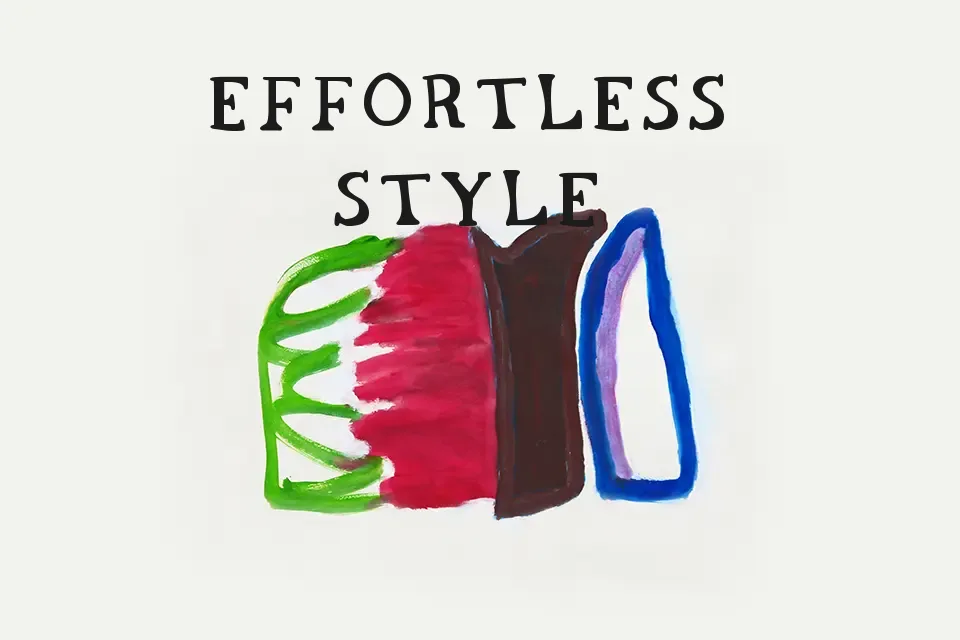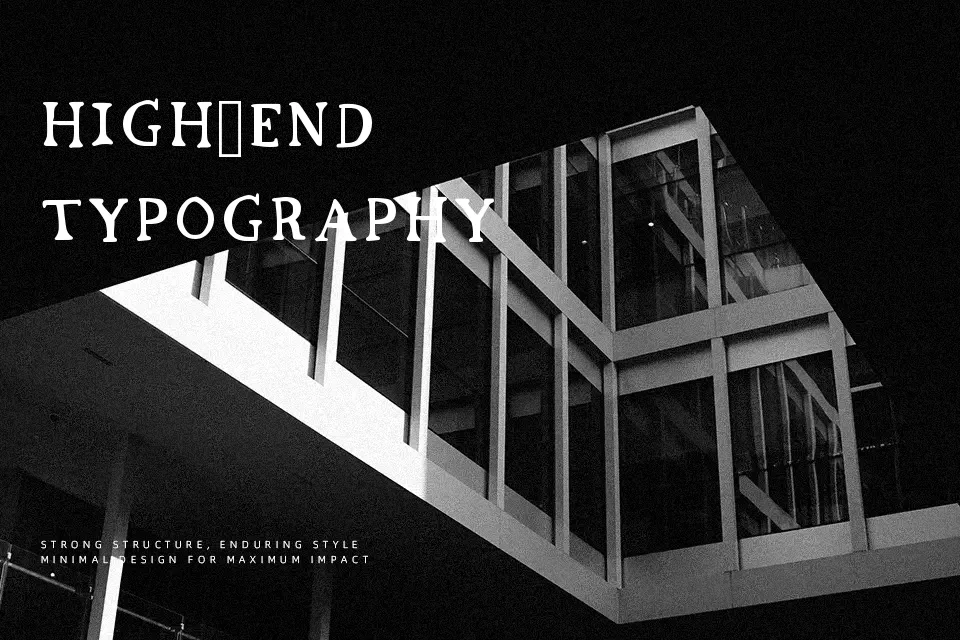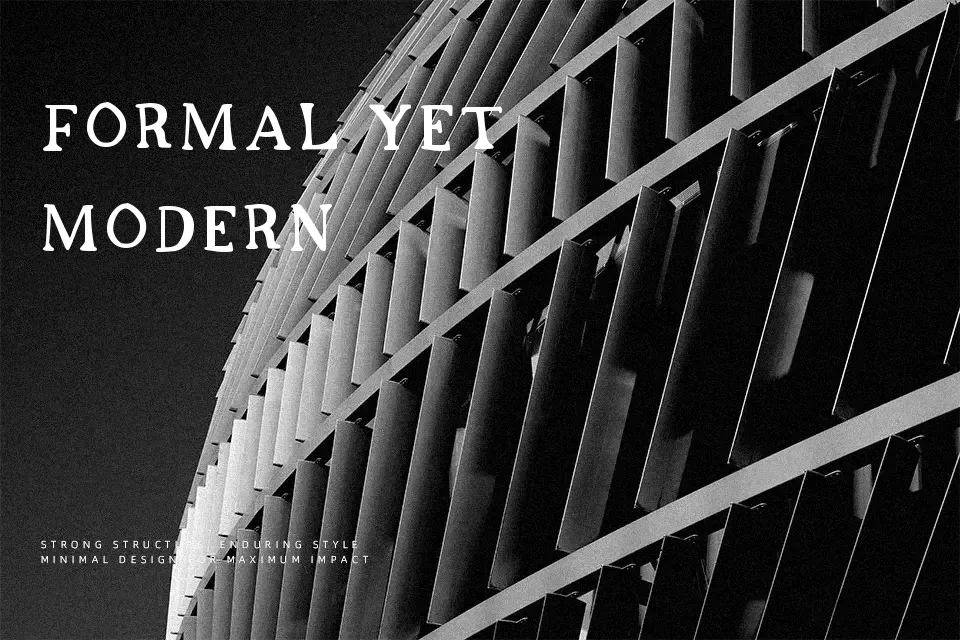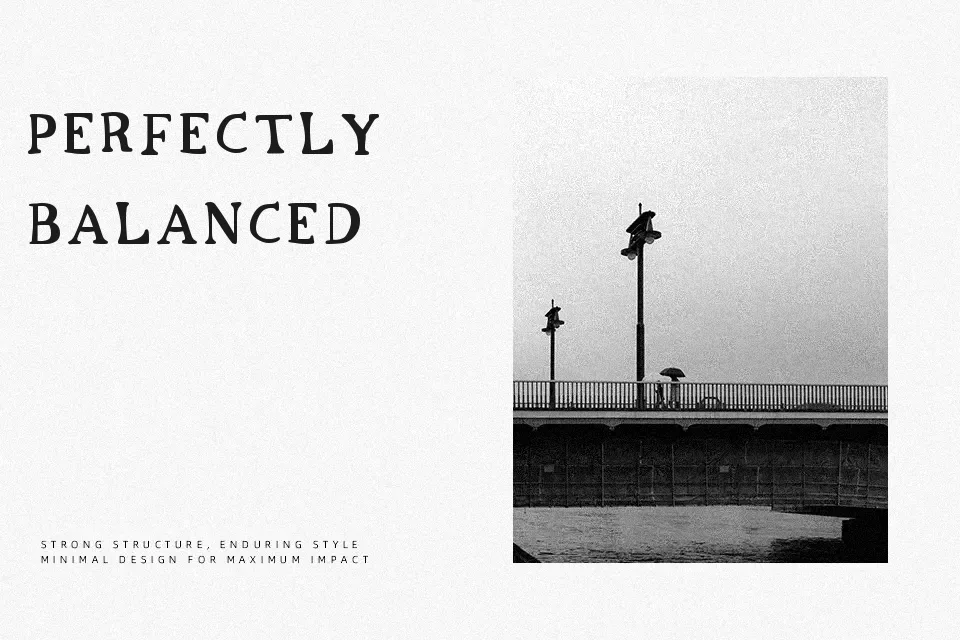
Ser Serif Font
Ser Serif Font features an unconventional serif architecture with stylized terminal treatments and balanced vertical proportions across its core letterforms. The typeface incorporates consistent stroke widths with moderate contrast, establishing an engaging rhythm when set at larger display scales. Its open spacing ensures that individual glyphs remain legible in high-impact applications such as promotional posters, product packaging, apparel graphics, and editorial titles. However, the stylized flourishes reduce comfort when reading extended text blocks, making the design less suitable for dense body paragraphs or small mobile captions. In practical use, the font delivers its strongest visual impact in isolated display settings.
– poster headlines
– product packaging labels
– creative editorial titles
– apparel graphic prints
– dense body paragraphs
– continuous book reading
– small interface captions
– technical documentation